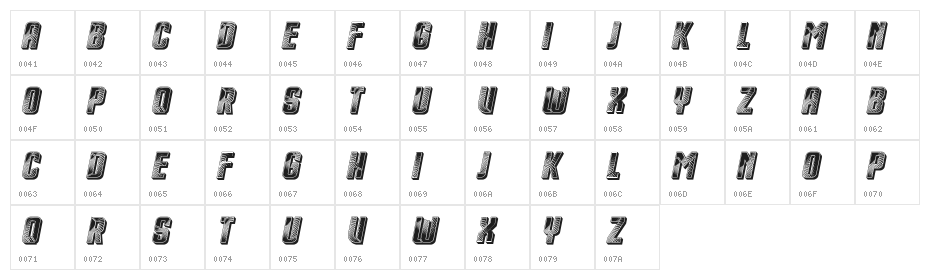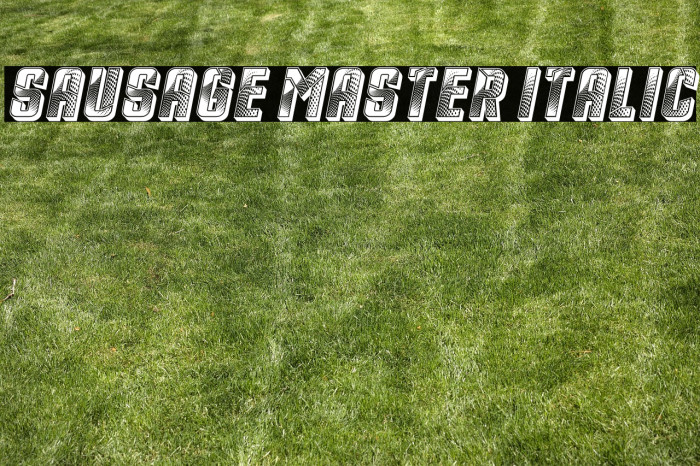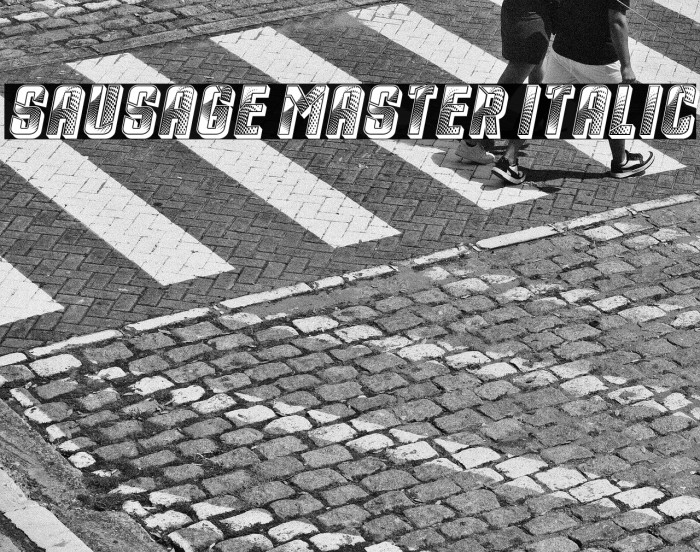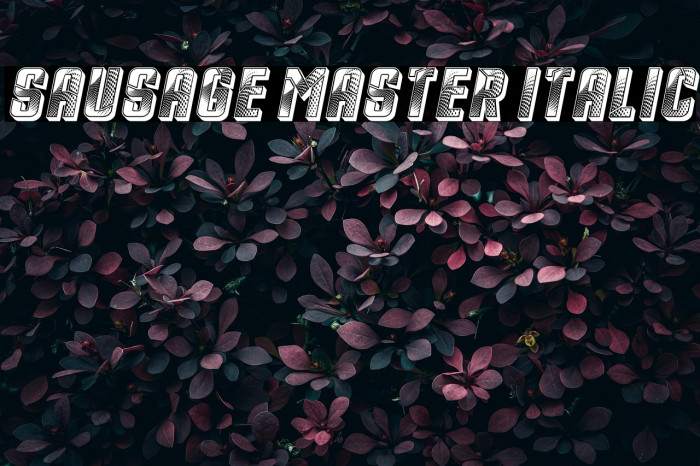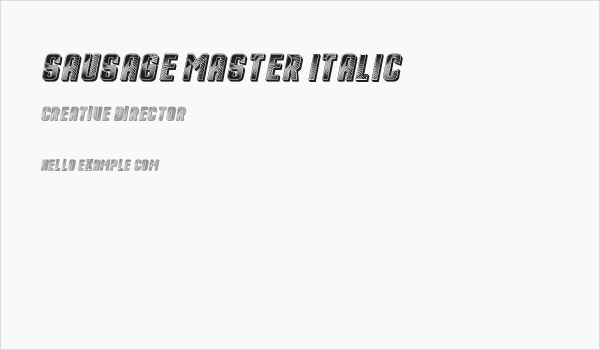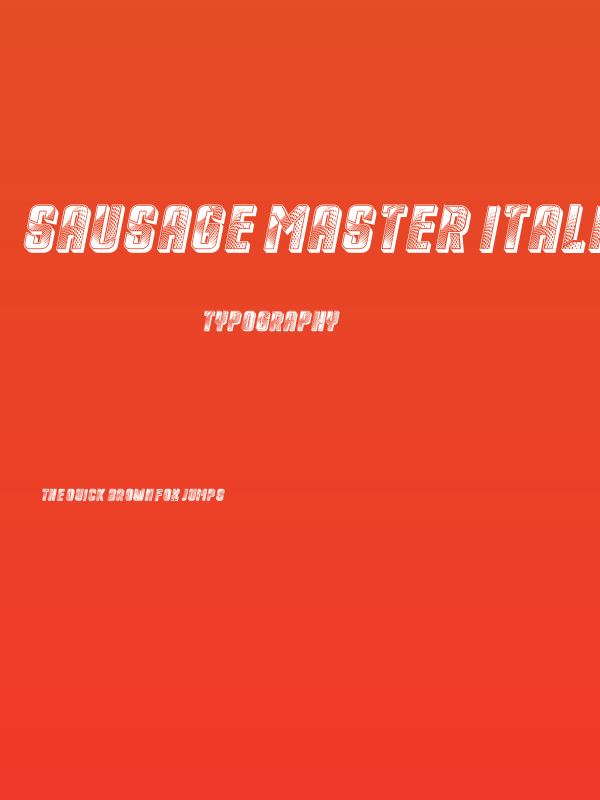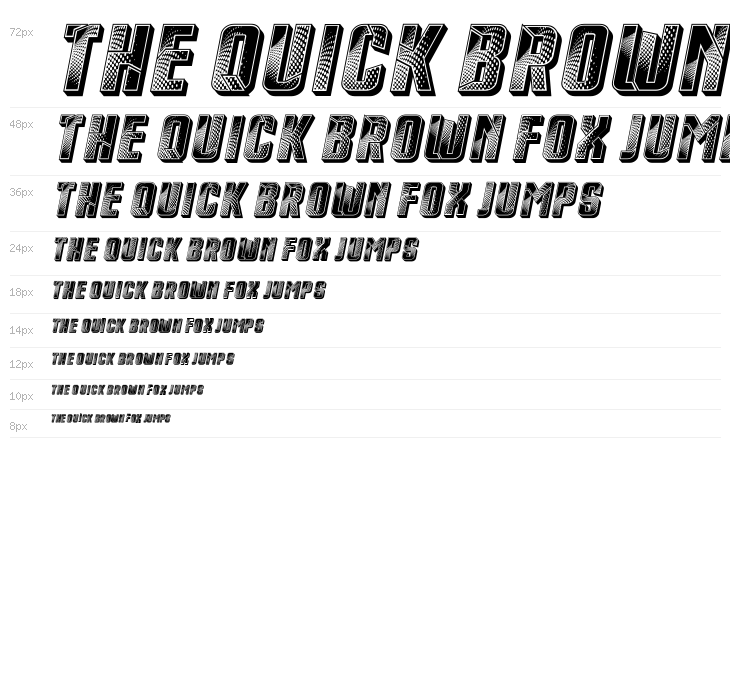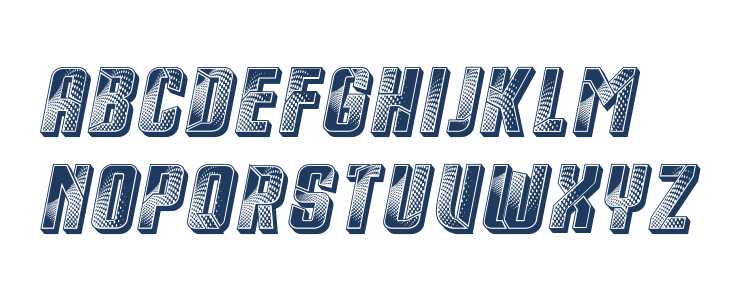
Sausage Master Italic Font
Sausage Master Italic Description
This font features a bold, three-dimensional style with a distinct italic slant. The characters are outlined with a thick black border, and the interior is filled with a dotted pattern, giving it a textured appearance. The design is highly decorative, making it stand out with its unique combination of shadowing and pattern. The uppercase letters are consistent in their boldness and style, creating a cohesive look across the alphabet. The font's playful and dynamic nature makes it suitable for eye-catching designs.
| Proposed Projects | Ideal for poster designs, branding projects, and any creative work that requires a bold statement. |